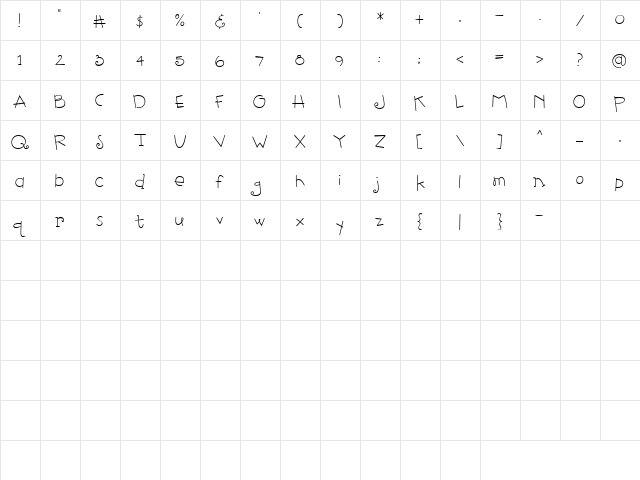
CK Fun Regular
Design Context for CK Fun Typeface
CK Fun trades formality for fun, with bouncy, characterful letterforms that bring warmth and energy to any project.
Font Pairing: Pairs well with a rounded or humanist sans for body copy, maintaining the friendly tone without relying on CK Fun to carry extended reading.
Pro Tip: Use CK Fun at larger display sizes where its expressive character can land. Pair with a clean, simple sans for body copy to maintain readability.